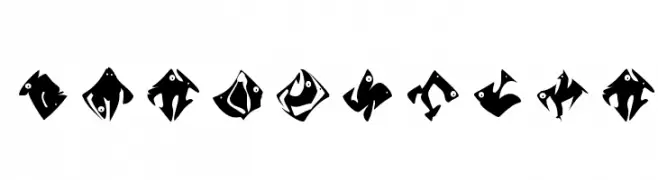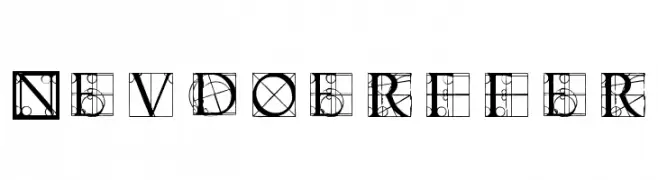
Hand-sketched pictogram font with abstract icons in square frames.
A whimsical decorative font featuring cartoon figures in circular frames.
Ornate, heraldic shield-themed decorative font with detailed illustrations.
A bold, sans-serif font with characters enclosed in square keycap-like frames.
Ornate, decorative frames and borders with vintage flourishes.
An abstract, artistic font with chaotic lines and textures in square frames.
A whimsical collection of artistic symbols in circular frames, perfect for creative projects.
A decorative font with characters designed as unique fish shapes within diamond frames.
A decorative font with intricate geometric patterns within square frames.